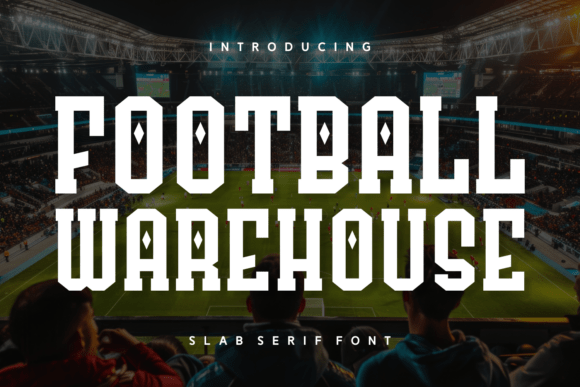
Football Warehouse Fonts: Power Meets Style
Welcome to the world of Football Warehouse Slab Serif Fonts, where bold design meets timeless elegance. These fonts are more than just typefaces; they’re tools that empower creators, entrepreneurs, educators, and hobbyists alike to bring their visions to life with flair and finesse. Whether you're designing a book cover, crafting a corporate logo, or putting together a school project, Football Warehouse offers a palette of possibilities that cater to diverse needs and styles.
What Is Football Warehouse?
Football Warehouse is not your typical font provider. It's a creative resource for those who want high-quality, versatile typography that stands out without shouting. Their collection of Slab Serif Fonts is especially notable — combining the sturdy, readable structure of traditional serifs with the clean, modern edge that today’s audiences crave. The result? A family of fonts that feel both classic and contemporary, perfect for a wide range of applications.
A Font That Works Across Industries
These Slab Serifs are fluent in multilingual design, making them ideal for global brands and international projects. With support for numerous languages and character sets, they ensure your message stays clear and impactful no matter where it appears. From magazine headlines to t-shirt graphics, these fonts add a layer of sophistication that’s hard to ignore.
Why Different Audiences Care About Football Warehouse Fonts
The beauty of Football Warehouse Slab Serif Fonts lies in their adaptability. What one group values as a tool for branding might be another’s medium for personal expression. Let’s explore how various users find value in these fonts:
For Entrepreneurs and Small Business Owners
If you're launching a new product or rebranding an existing one, visual consistency matters. Football Warehouse fonts help establish a strong brand identity through distinctive logos and catchy promotional materials. For example, a boutique clothing line can use these fonts on posters and packaging to create a cohesive, stylish look that resonates with customers.
For Marketers and Designers
Marketers love fonts that speak across mediums. With 7 different types available, you can match the right font to every campaign need — from a bold headline to a subtle tagline. Designers appreciate the flexibility these fonts offer in crafting everything from elegant greetings cards to eye-catching event banners. The ability to switch between formal and playful tones within the same font family is a game-changer for dynamic branding efforts.
For Educators and Students
In the classroom, creativity can enhance learning. Educators using Football Warehouse fonts for presentations or educational materials can capture students’ attention while maintaining readability. For students working on school projects or yearbooks, these fonts provide a professional finish that makes even simple designs stand out. Imagine a history report with a regal Father’s Day quote styled using one of these fonts — it instantly elevates the overall impression.
For Hobbyists and DIY Enthusiasts
How Football Warehouse Fonts Can Enhance Your Projects
Whether you're a seasoned designer or someone just starting out, here are some practical ways to integrate these fonts into your work:
Book Covers and Magazine Headlines
- Authors and publishers can use these fonts to create compelling book covers that draw readers in with a sense of authority and style.
- Magazine editors benefit from the fonts’ ability to highlight important quotes or headlines without overwhelming the reader.
Corporate Branding and Logos
- Business owners can build trust and professionalism by using these fonts in company logos and official documents.
- Marketing teams will appreciate the clean lines and bold presence that make these fonts suitable for both digital and print formats.
Bespoke Greetings Cards and Holiday Messages
- Card designers can craft unique holiday messages with a touch of elegance, ensuring their products stand out in a crowded market.
- Families and friends can personalize thank-you notes or birthday cards with fonts that evoke warmth and tradition.
Poster and Promotional Materials
- Event planners can use these fonts to create posters that command attention while remaining easy to read.
- Local businesses can design flyers and advertisements that reflect a strong, memorable brand image.
T-Shirt Designs and Silhouettes
- Graphic designers can leverage the boldness of these fonts to create striking t-shirt prints that appeal to fashion-forward consumers.
So, take a moment to explore what Football Warehouse has to offer. You might just discover a new favorite tool that transforms the way you present your ideas — because in design, the details matter, and the right font can make all the difference.